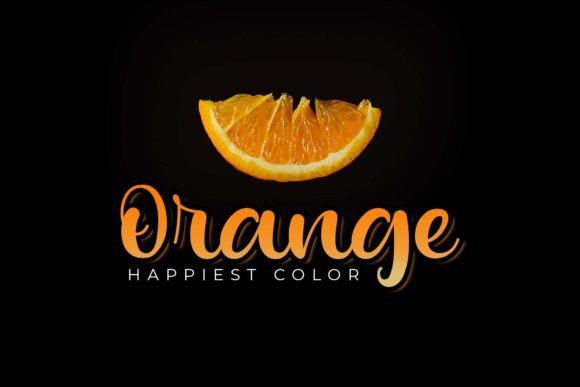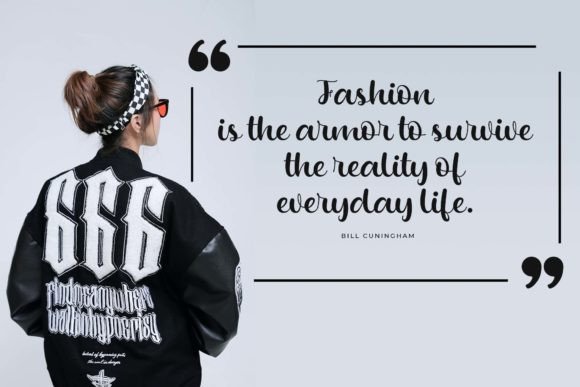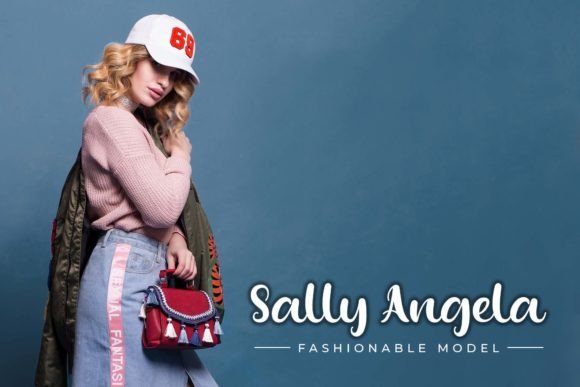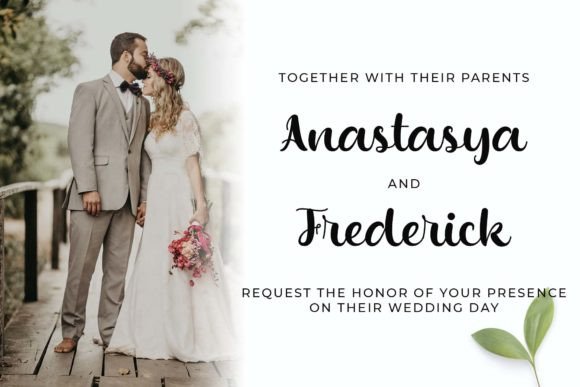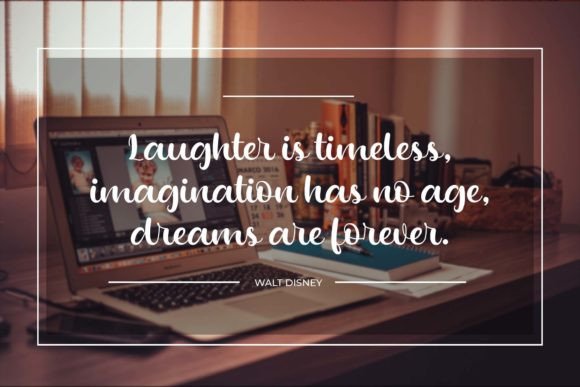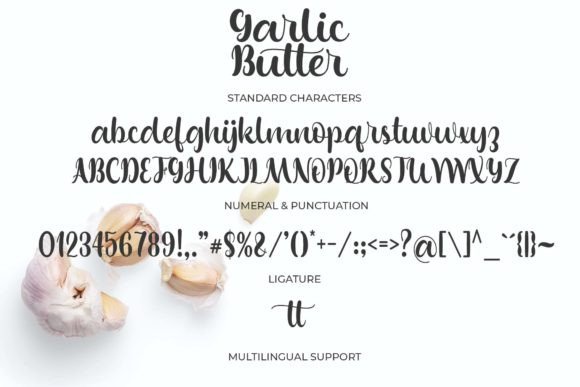
Introduction to Garlic Butter Font
Garlic Butter is a lovely and sweet handwritten script font.
This gentle font will look gorgeous on a variety of design ideas It will add a joyful and romantic touch to each of your projects.
Key Features of Garlic Butter Font
Why Choose Garlic Butter Font?
Garlic Butter Font offers exceptional quality and versatility, making it a valuable addition to your design toolkit. Whether you’re creating for personal projects or commercial use, Garlic Butter Font delivers professional results.